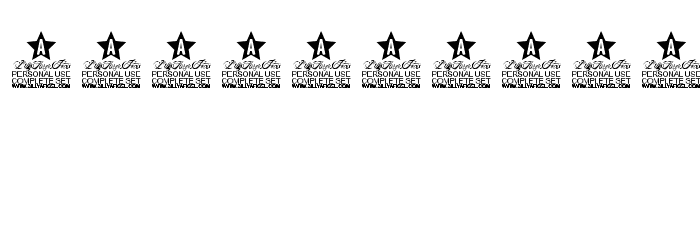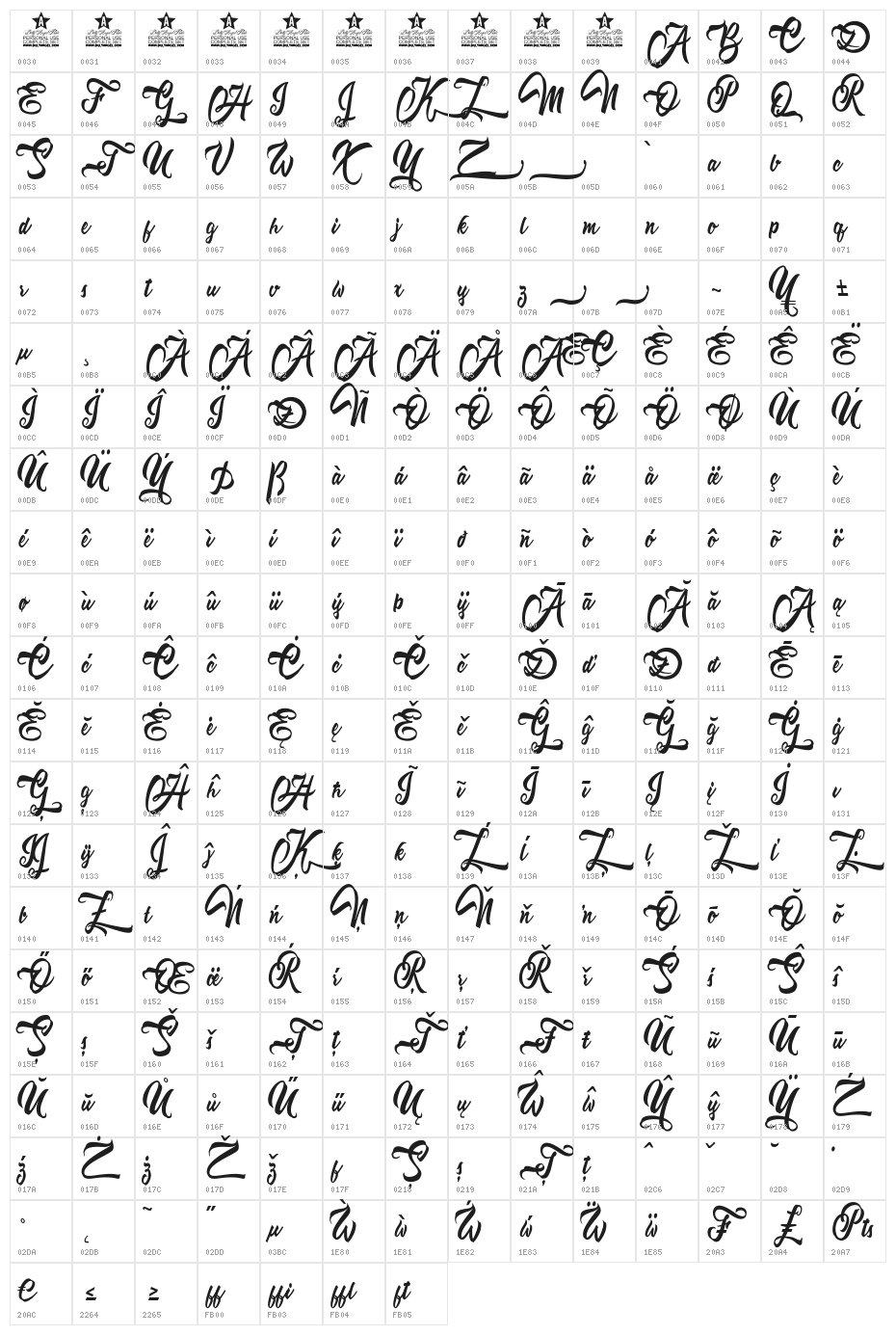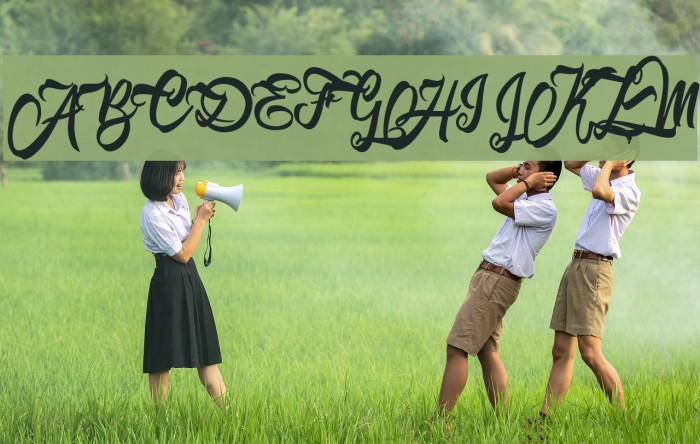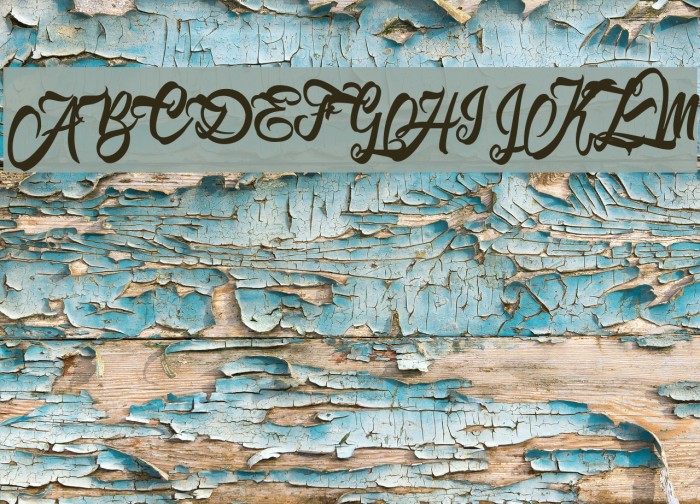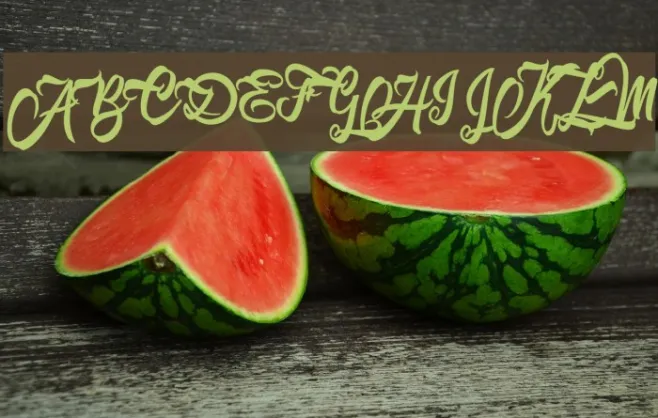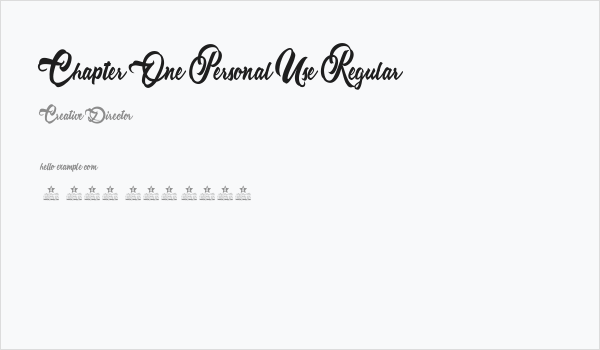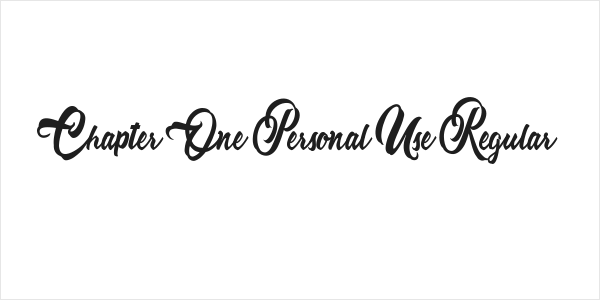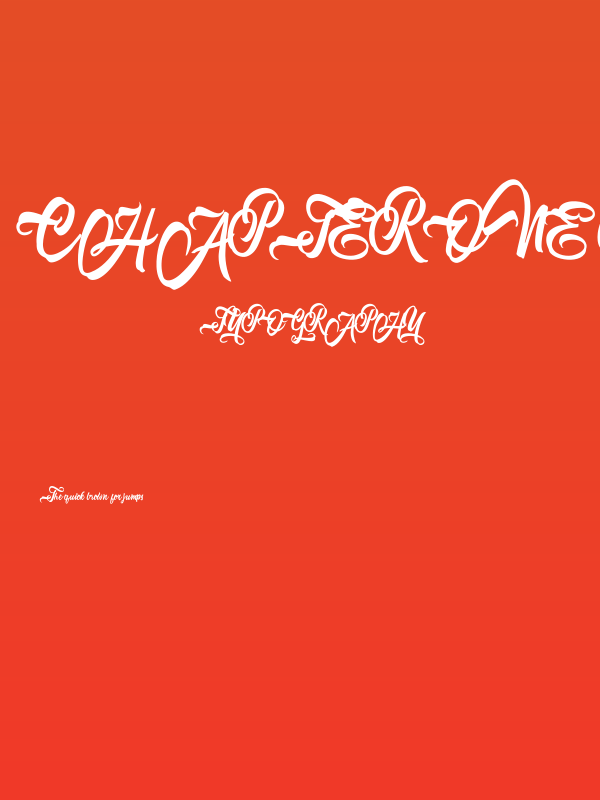
Chapter One Personal Use Regular Font
Chapter One Personal Use Regular Description
This font features an elegant and flowing script style, characterized by its intricate and decorative letterforms. The uppercase letters exhibit a high degree of flourish, with elaborate loops and swashes that give it a sophisticated and artistic appearance. The lowercase letters maintain a consistent flow, with smooth connections between characters, enhancing its cursive nature. The overall design is reminiscent of classic calligraphy, with a modern twist that adds a unique flair. This font is well-suited for projects that require a touch of elegance and creativity, such as invitations, branding, and decorative headings.